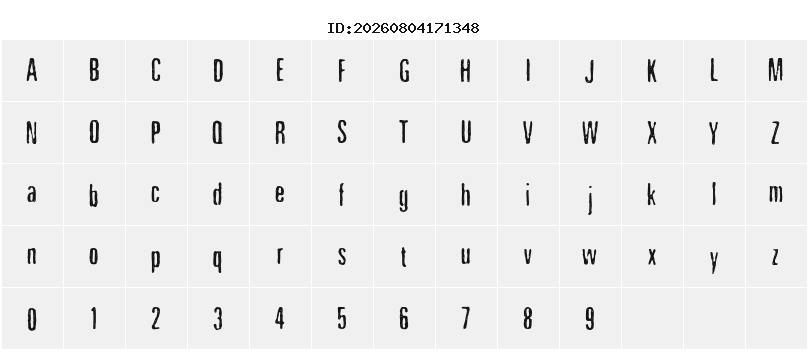
• Font Name: Nicotine Stains
• Designer: S. John Ross
About Nicotine Stains.ttf
Nicotine Stains.ttf is a modern, elegant sans-serif font designed for ultimate readability and visual harmony. Perfect for branding, headlines, web design, and print materials.